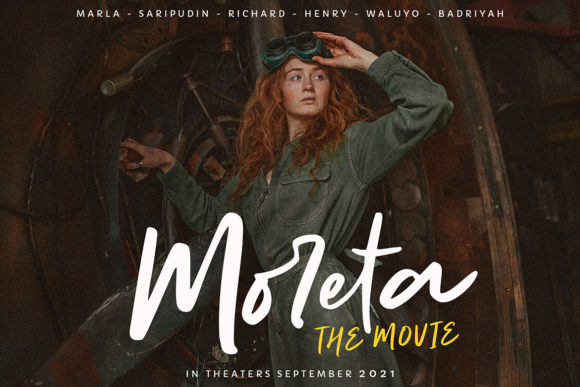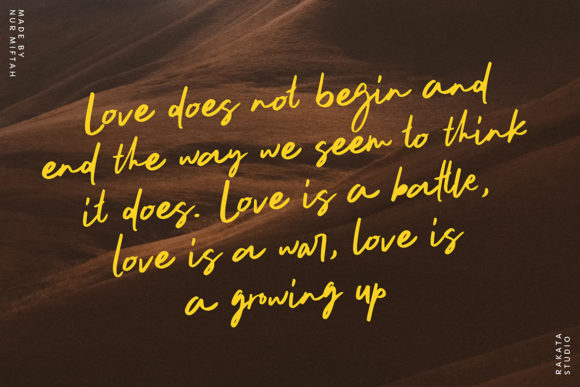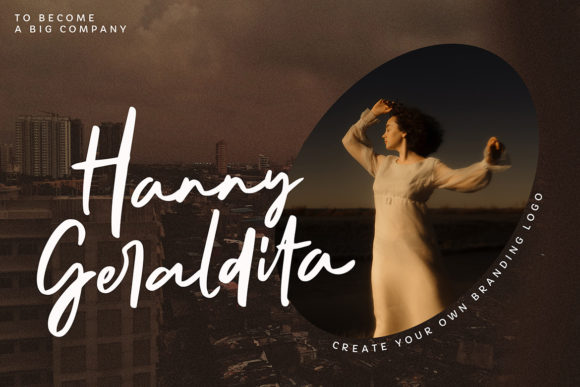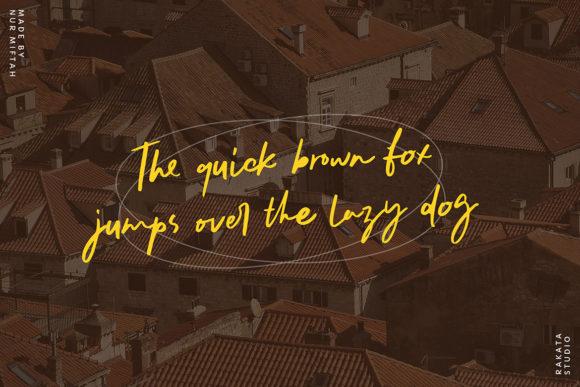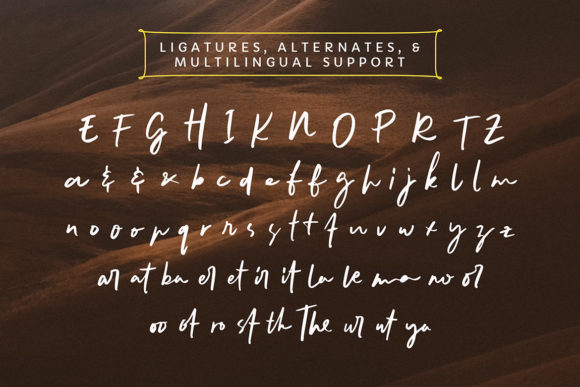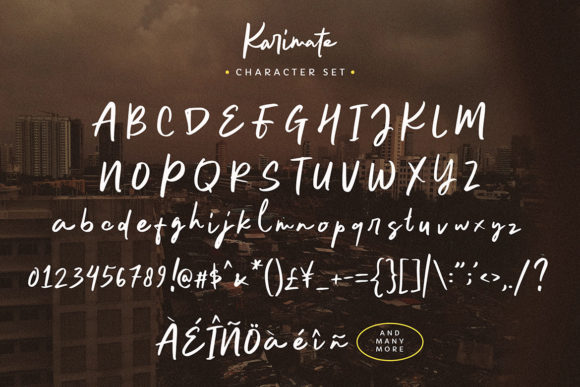
Introduction to Karimate Font
Remember that moment when you were working on a creative project and you just couldn’t find the right font to match your vision? The perfect typography can make all the difference in elevating your design and taking it to the next level. That’s where the Karimate Font comes in – a high-quality, versatile font that’s sure to be your new go-to design resource.
With its sleek, modern design and transparent background, the Karimate Font is perfect for any creative project. Whether you’re working on a logo, brochure, or website, this font is sure to add a touch of sophistication and style. And the best part? It’s available for free download, making it a valuable asset for designers of all levels.
Key Features of Karimate Font
- Unique, modern design perfect for creative projects and artistic expressions
- High-quality font with transparent background, allowing for seamless integration into various design elements
- Comes in a single size, but can be easily scaled to fit various design needs, from small text to large headings
- High-resolution design, suitable for use in print and digital media, including high-definition displays and large-format printing
- Designed to be highly legible and visually appealing, making it an excellent choice for creative projects and design applications
Honest Review: Karimate Font
As a designer, I’m always on the lookout for unique and high-quality fonts to elevate my creative projects. The Karimate Font caught my eye with its elegant and modern design.
What works well with this font is its versatility. It’s perfect for creating eye-catching headings, titles, and even logotypes. The high-quality design ensures that it looks great on a transparent background, making it ideal for digital designs.
However, I did encounter some limitations with the Karimate Font. It only comes in a few weights, which can limit its usage in certain projects. Additionally, the font might not be suitable for projects that require a more traditional or classic look.
Overall, I’m impressed with the Karimate Font and would recommend it to designers working on modern and creative projects. Just be aware of its limitations and use it accordingly.
- Unique and modern design
- Perfect for digital designs
- Only a few weights available
Tips for Getting the Most Out of Karimate Font
To get the most out of the Karimate Font, experiment with different font sizes, colors, and styles to create a unique and eye-catching design. You can also combine the font with other design elements, such as images and graphics, to create a visually appealing creative project.
The Karimate Font is perfect for a variety of creative projects, including logo design, branding, and marketing materials. Its high-quality design and transparent background make it a great choice for designers who want to create a professional-looking design with a personal touch.